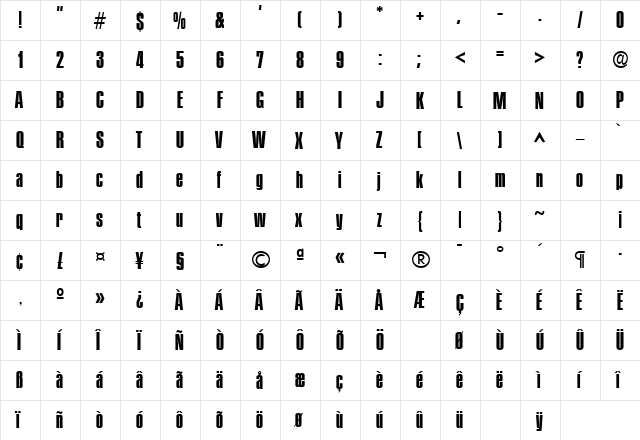
PlaketteThree Regular
Design Context for PlaketteThree Typeface
PlaketteThree takes a measured approach to typography — its balanced proportions and neutral character make it a reliable workhorse for both digital and print work.